MADE.COM unveils brand refresh with a trio of Fontsmith typefaces
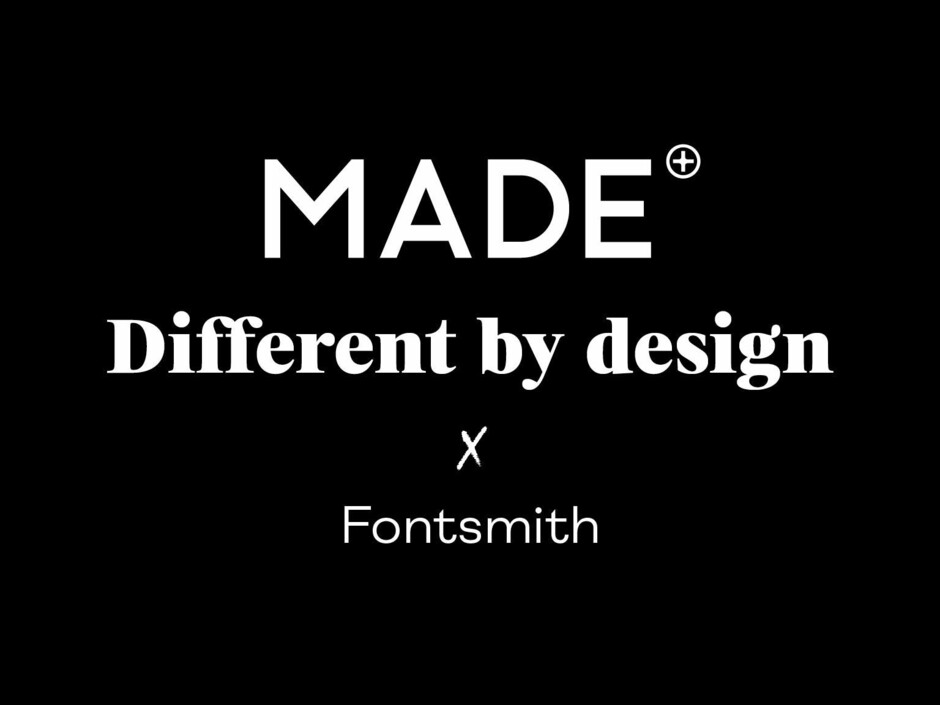
MADE.COM unveils brand refresh with a trio of Fontsmith typefaces
In August 2018 online design brand MADE.COM contacted us to help them with the typography for their upcoming brand refresh. The roll out was planned for December to coincide with the launch of a brand new website and their end of year sale which has just gone live today.
For headlines, MADE.COM were looking for something fresh, sharp and magazine-esque. Fontsmith typeface FS Neruda was chosen for this task. FS Neruda Black is playful, lively and quirky yet solid and suave. A delicate poster font style of a serif with a homely aroma: just like MADE.COM’s furniture.
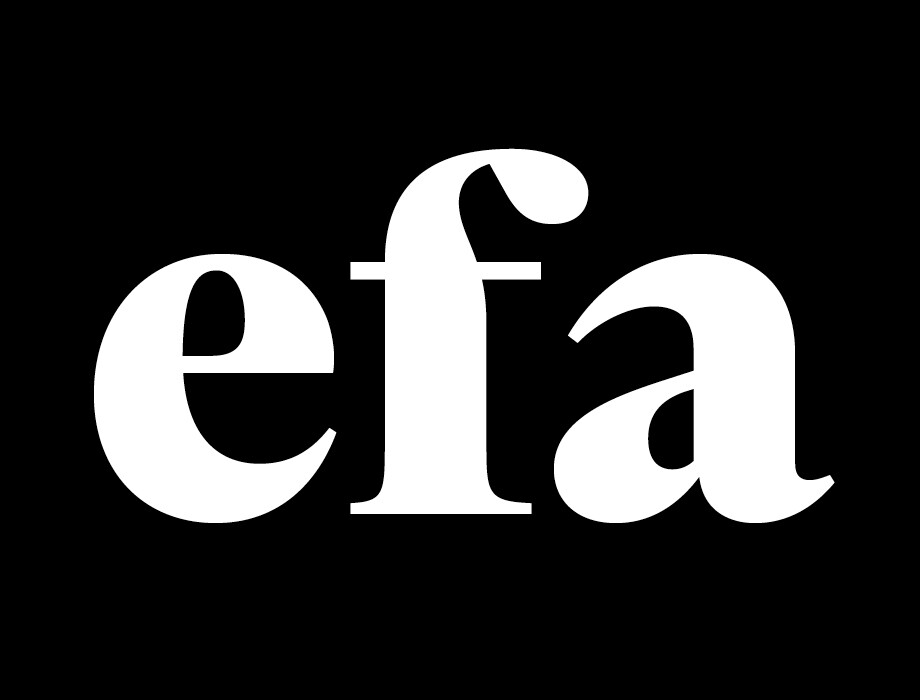
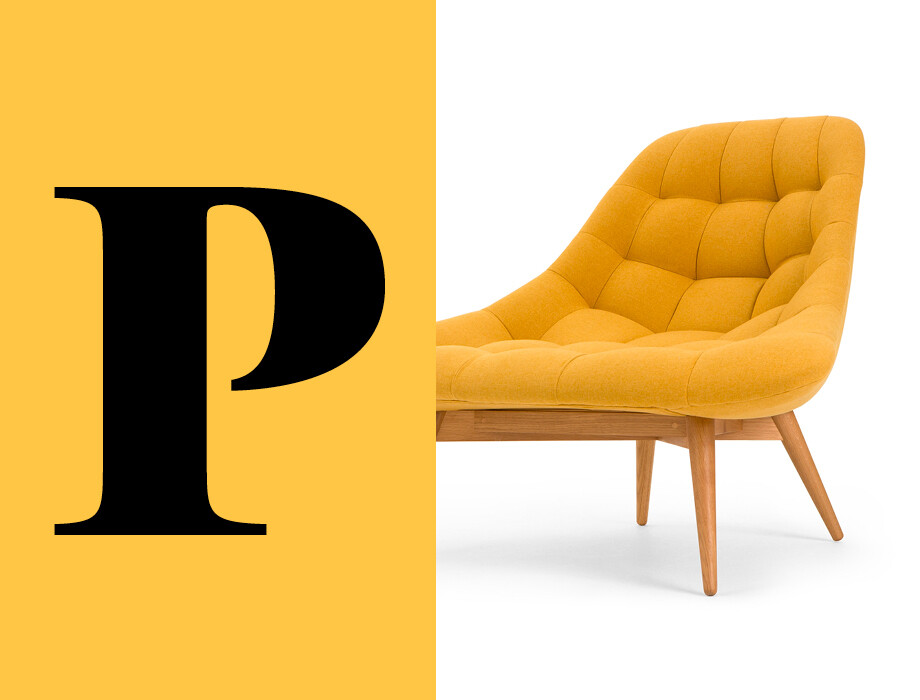
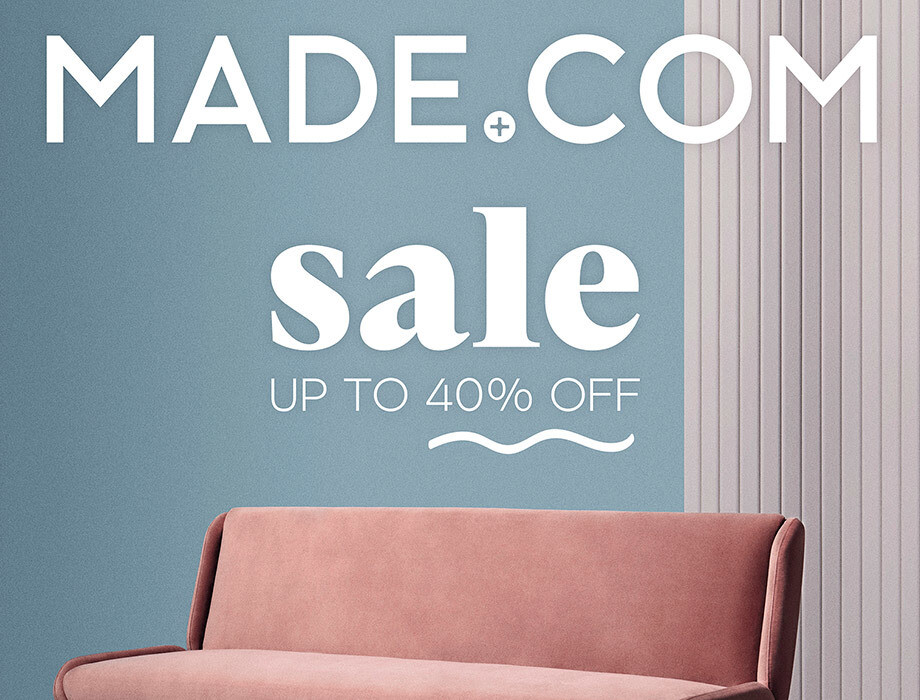
With so many brands still opting for clean geometric sans serifs online, the right contemporary serif presents an opportunity to standout from competition. We have seen a lot of homogenous design online over the years but recently there has been an increase in brands that want to stand out from competitors and typography is a good way to do that. MADE.COM is different and wanted to differentiate itself — and typography plays a crucial role here. It’s not a coincidence that “Different by design” is their new strapline. A confident statement that needed a positive new typographic voice; a voice that would bring vigour, fashion and distinctiveness to the brand.
Our upcoming sans serif FS Meridian (launching early next year) was the perfect companion for FS Neruda. Used as a subheading and body copy font, it stands out due to its distinct construction, contemporary tone, confident shapes, wide proportions and tall ascenders and descenders.
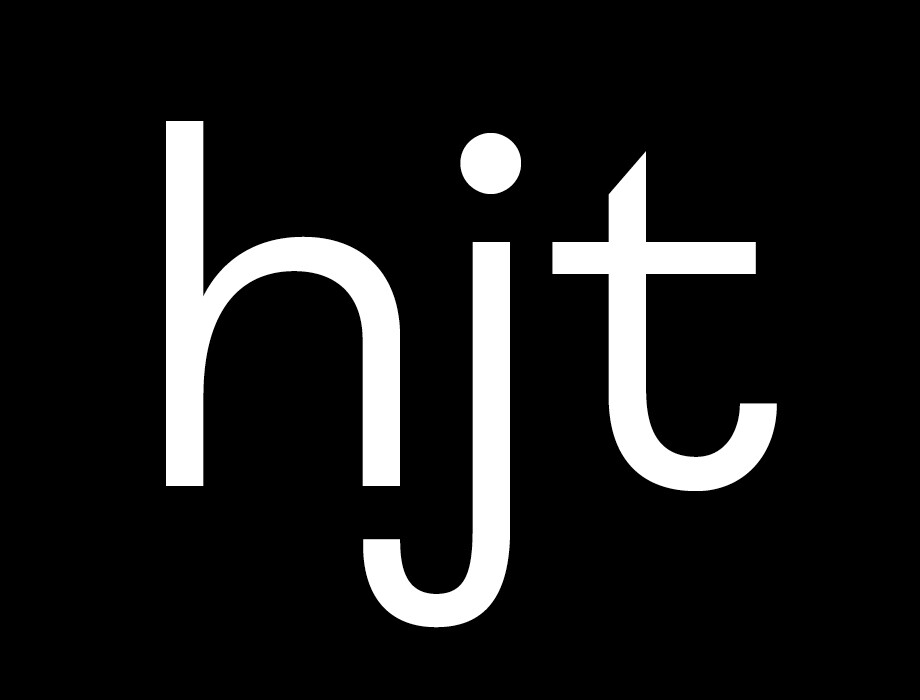
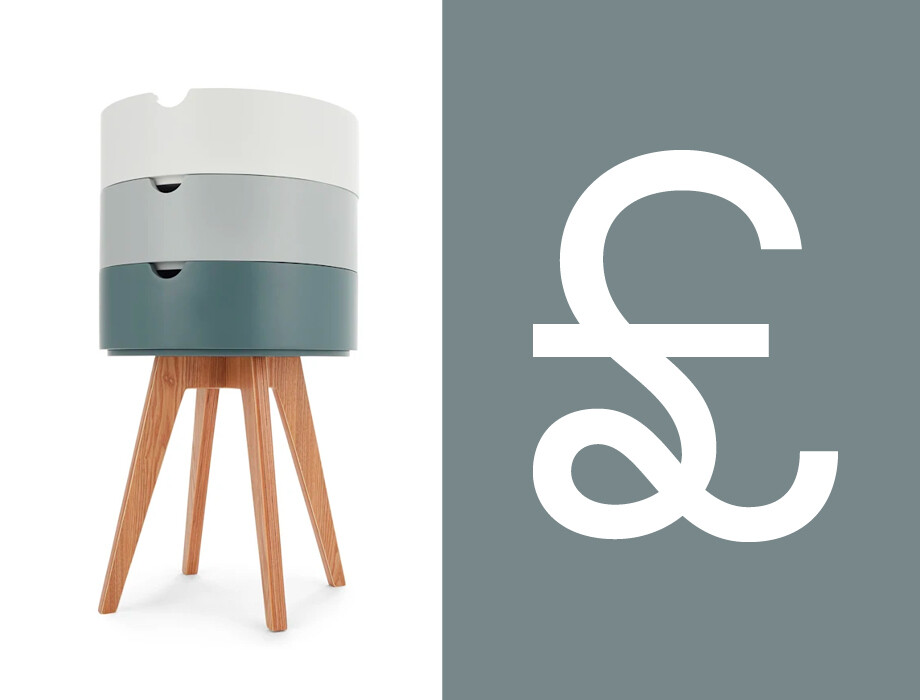
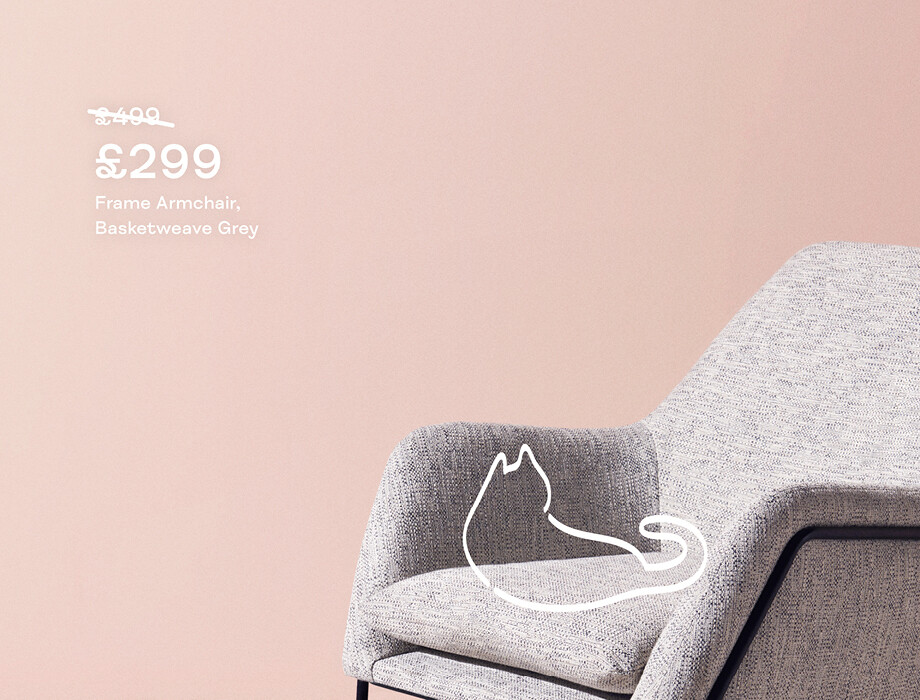
FS Meridian presents a subtle design focused counterpoint to the impersonal geometric trend. By selecting this font MADE.COM have injected an element of dynamism into their identity.
Script font FS Sammy was chosen to complete the typographic system. It will be used for special touches on the MADE.COM website and marketing materials (to be rolled out in 2019).
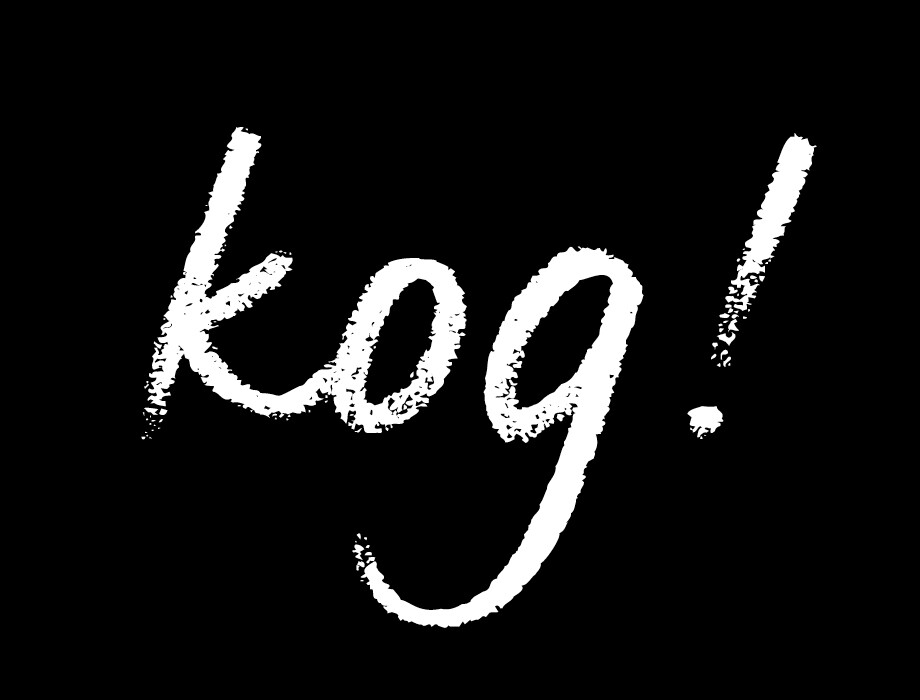
Digital design benefits from the warmth and honest personality of the human hand making FS Sammy the perfect choice to add a touch of authenticity.
From a typographic perspective, pairing fonts can be one of the most challenging and important parts of a rebranding project. The truth is there are no rules to follow and we need to harmonise different voices to get the perfect tune. Adding contrasting typefaces such as FS Neruda and FS Meridian helps to create a sophisticated and distinctive balance.